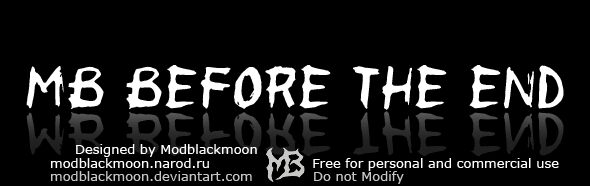
MB Before the End by ModBlackmoon is a free trash script with jagged, uneven capitals and a raw marker-cut silhouette. Pointed tips and irregular edges make the lettering feel scraped and urgent.
It can give punk gig posters a confrontational title treatment, yet its hand-cut shapes also suit horror game graphics and underground clothing labels. Album covers and skate merchandise benefit from the same rough attack, where the letters can become part of a distressed illustration rather than serving as neutral type.
Includes English, European, and Cyrillic letters and numbers.